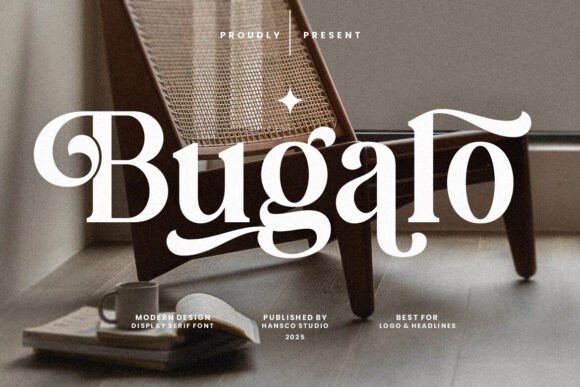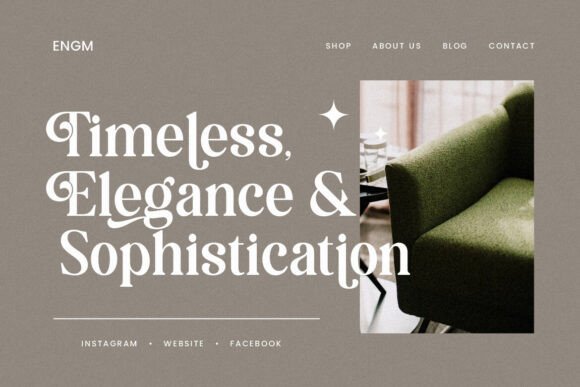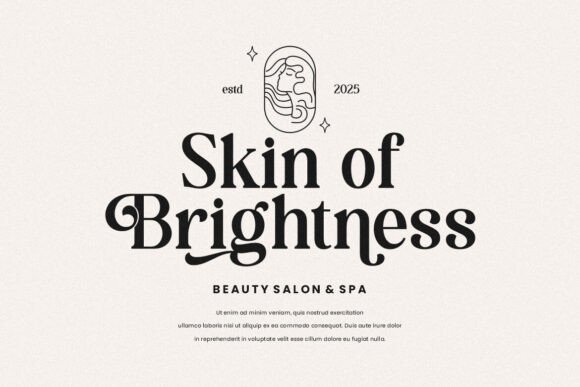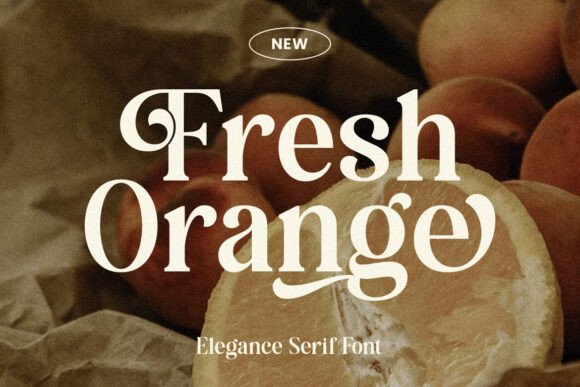
Bugalo Font: Retro Serif for Vintage Logo Design & Playful Branding
About the Bugalo Font
Unleash your creativity with Bugalo Font, a versatile font perfect for a wide range of applications. Bugalo Serif feels playfully nostalgic and delivers an incredible vintage aesthetic. Use this serif font to add that special retro touch to any design idea you can think of! Masterfully designed to become a true favorite, this font has the potential to bring each of your creative ideas to the highest level!
Bugalo Serif’s playful vintage aesthetic makes it ideal for headlines, short text blocks in posters, and branding projects requiring a retro feel. It works exceptionally well for packaging design, especially for products targeting a younger demographic or those with a vintage-inspired aesthetic. However, its decorative nature makes it less suitable for body text or UI elements where high readability is crucial. Avoid using it for long paragraphs or dense text layouts.
Its nostalgic charm pairs well with clean sans-serif fonts like Montserrat or Open Sans for a balanced contrast. For a more playful feel, consider pairing it with a rounded geometric sans-serif like Lato. A script font like Great Vibes can add a touch of extra vintage flair when used sparingly.
Bugalo’s overall personality is best described as cheerful and retro, conveying a sense of fun and nostalgia without being overly childish or serious. It’s a versatile choice for projects aiming for a lighthearted, vintage-inspired feel.